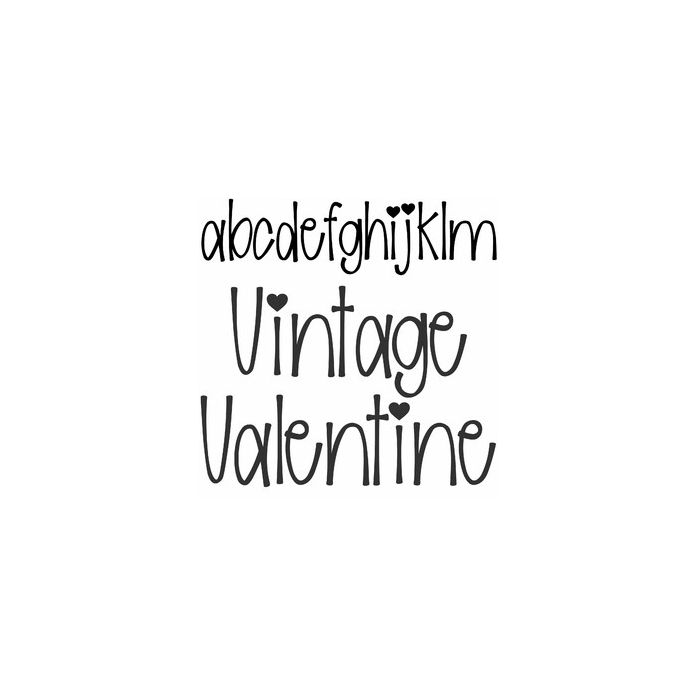
Vintage Valentine is a cute marker style font for Valentine's Day and Birthday crafts, cards, signs, tshirts, and personalization projects. Includes alphabet, numbers, and punctuation.